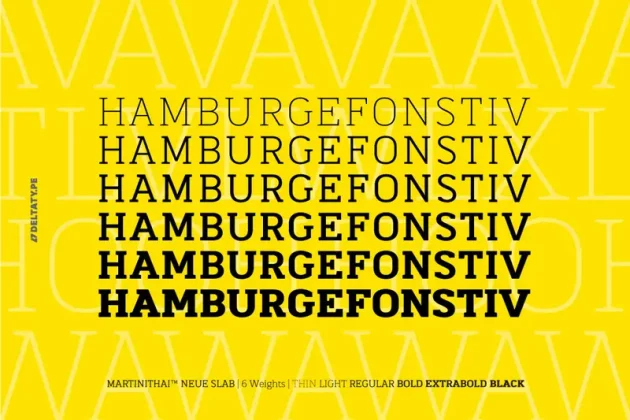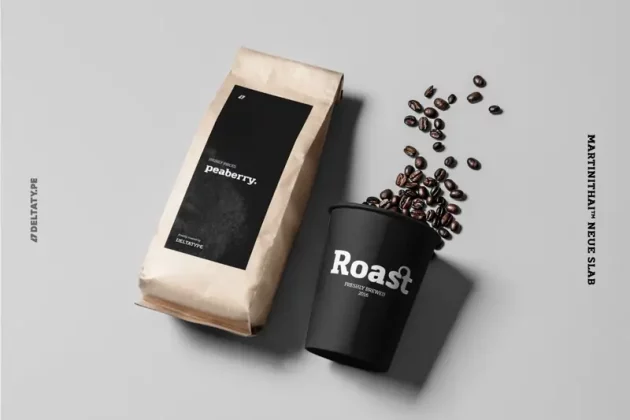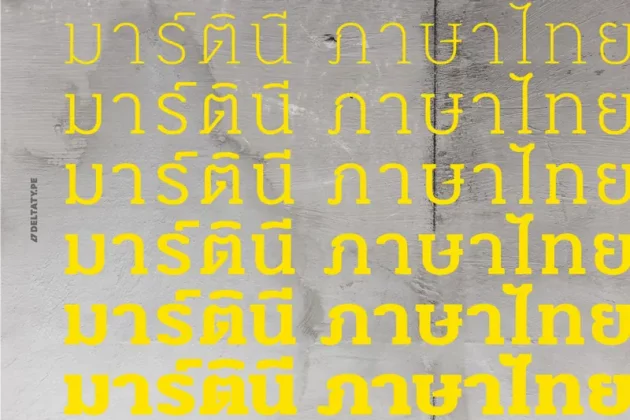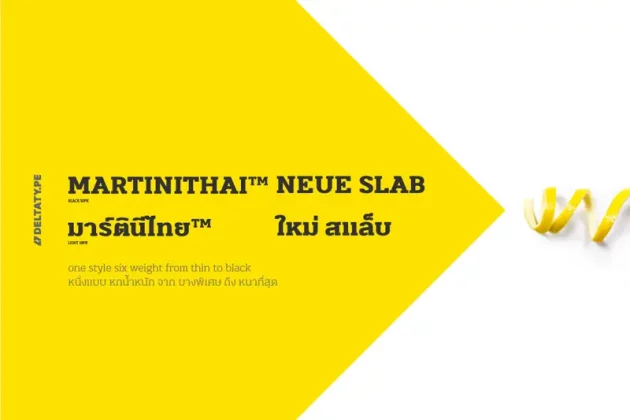
Martini Thai Neue Slab (Complete) Font
MartiniThai Neue Slab is a slab-serif based typeface that includes six weights from thin to black. MartiniThai Neue Slab originates from Martini typeface but with better drawing, proportions and as well includes Thai script within the set.
Complete Family 6 weights
Thin / Light / Regular / Bold / ExtraBold / Black